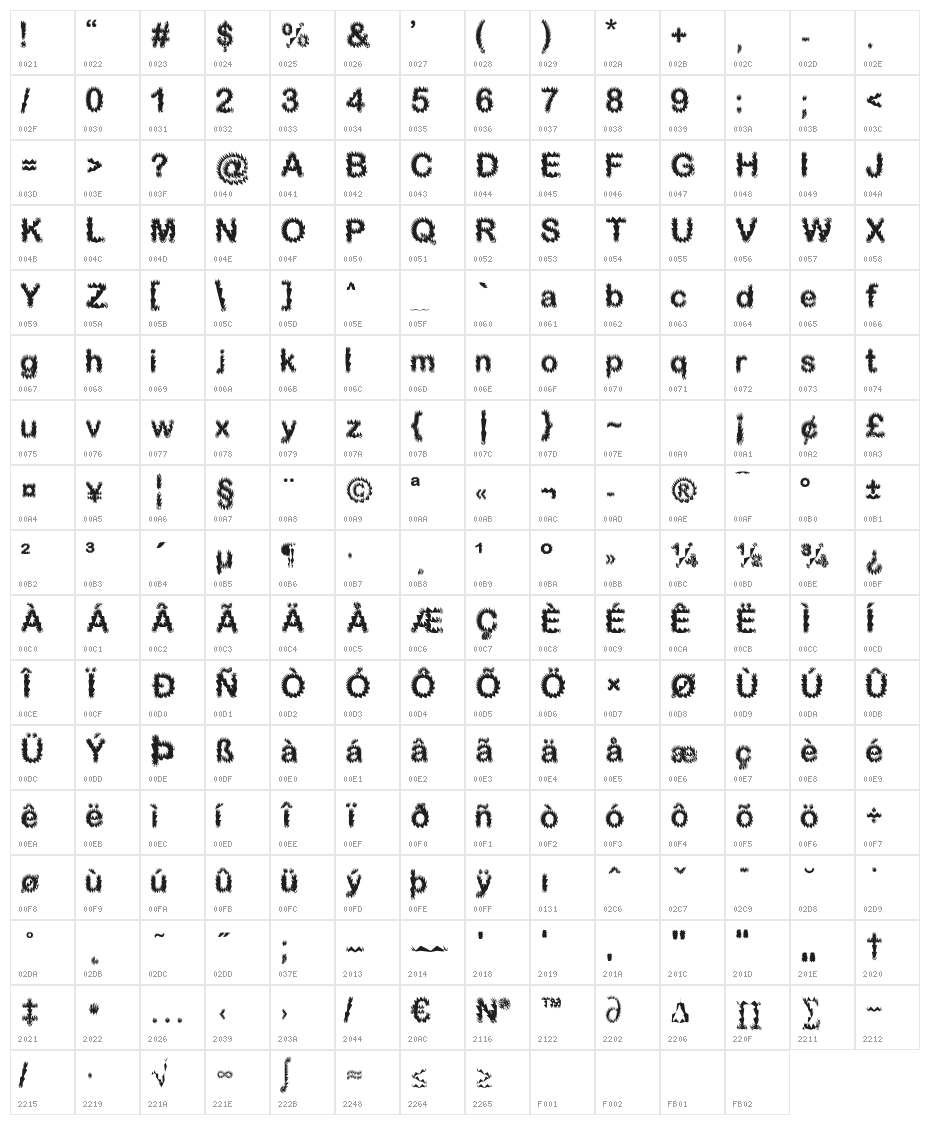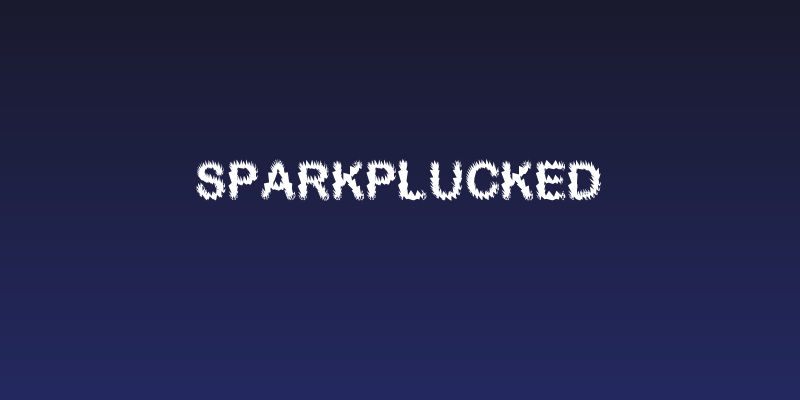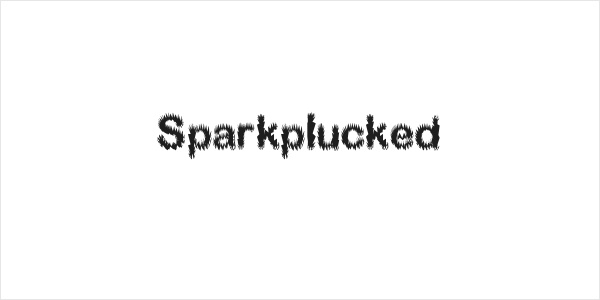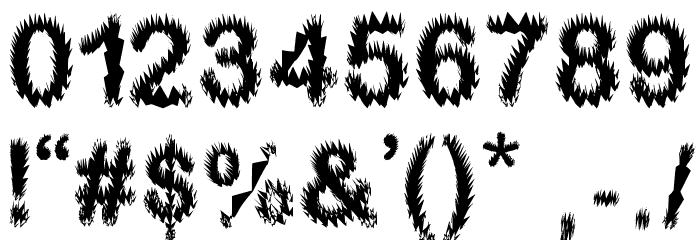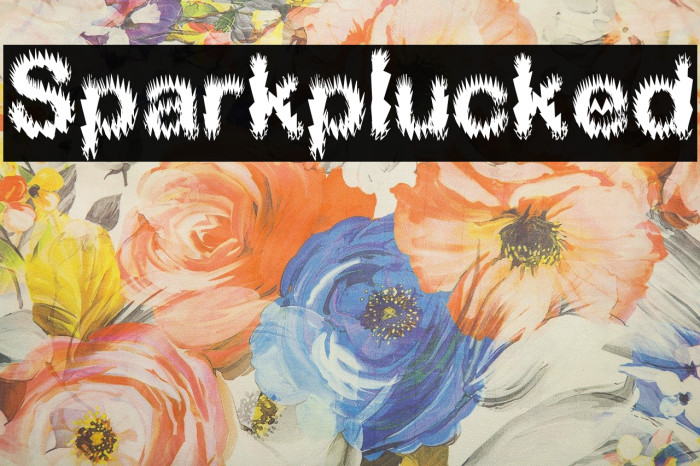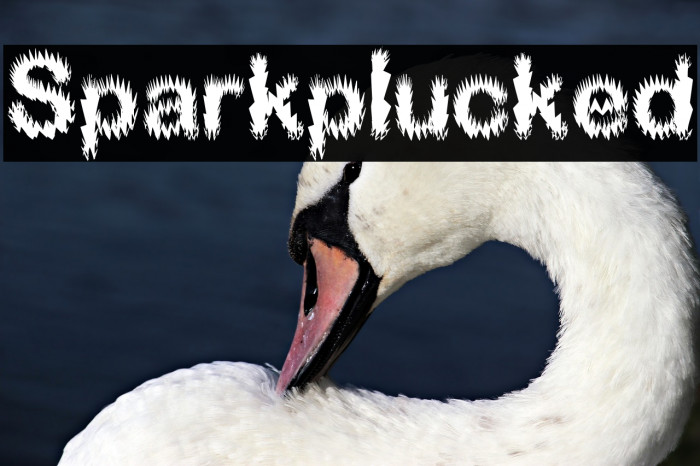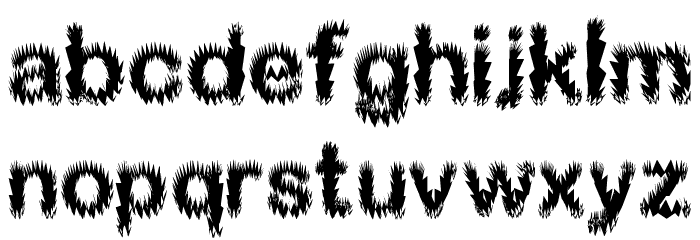
Sparkplucked Font
This font features a dynamic and jagged design, reminiscent of electrical sparks or bursts of energy. Each character is crafted with sharp, irregular edges that give it a sense of movement and intensity. The uppercase and lowercase letters maintain a consistent style, with the jagged edges creating a visually striking effect. Numbers and special characters follow the same energetic pattern, ensuring a cohesive look across all text. The font's unique appearance makes it ideal for projects that require a bold and attention-grabbing typeface.
| Proposed Projects | Ideal for music album covers, event posters, or branding for edgy and modern products. |